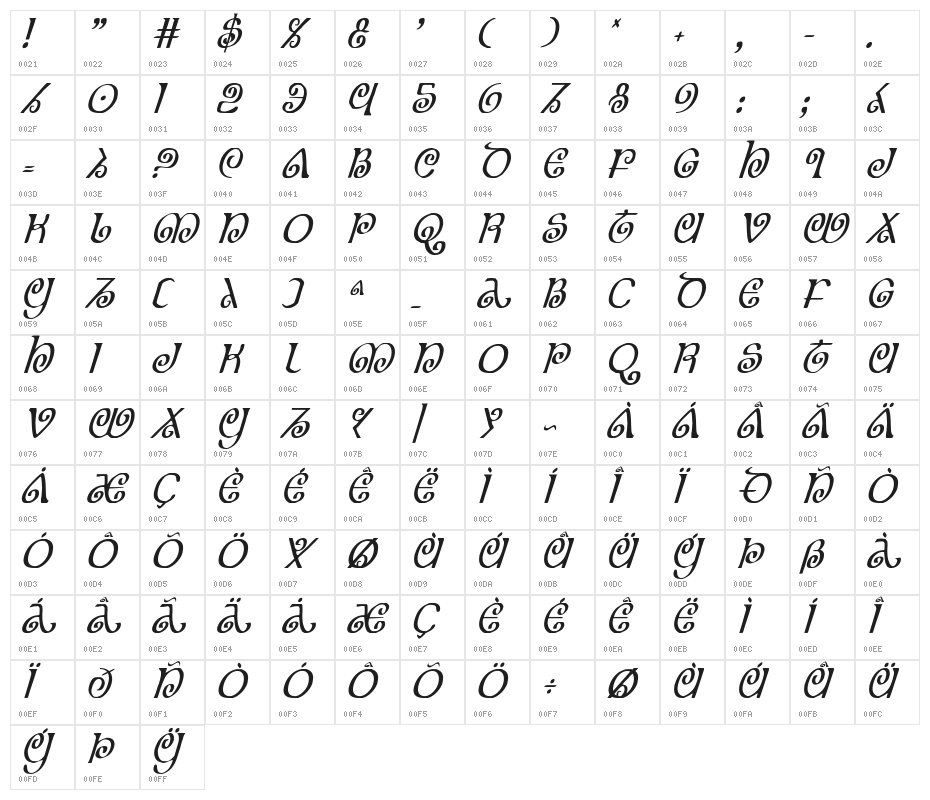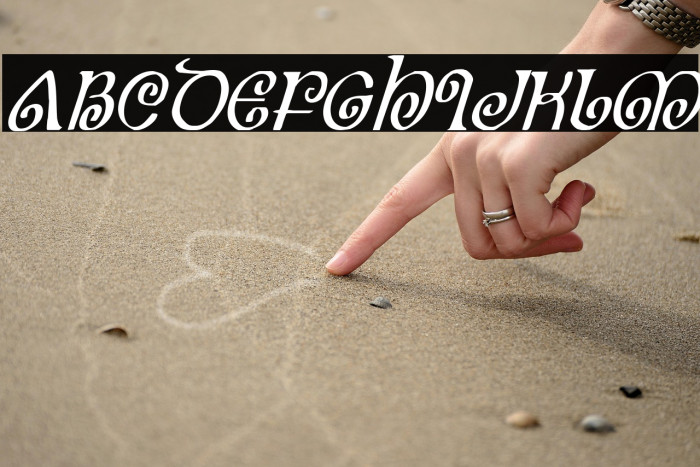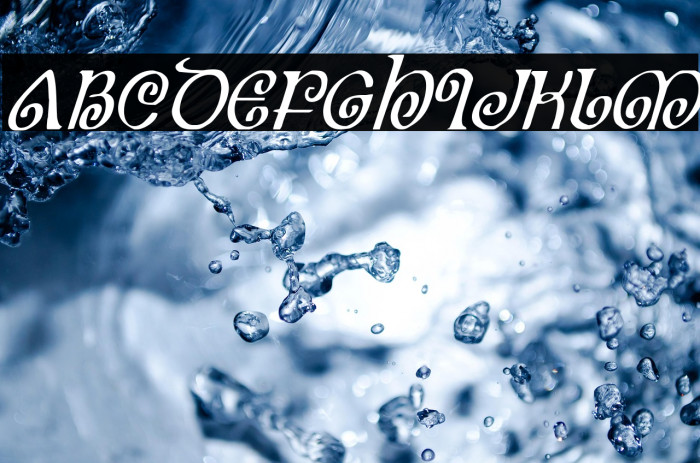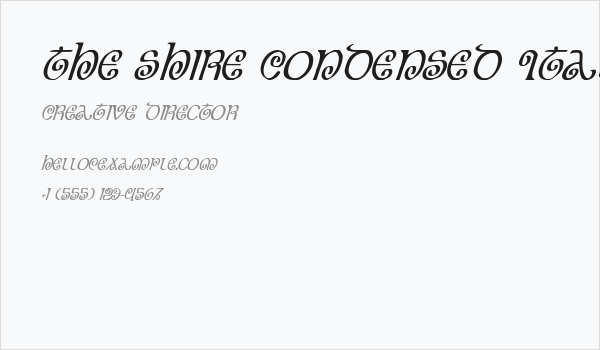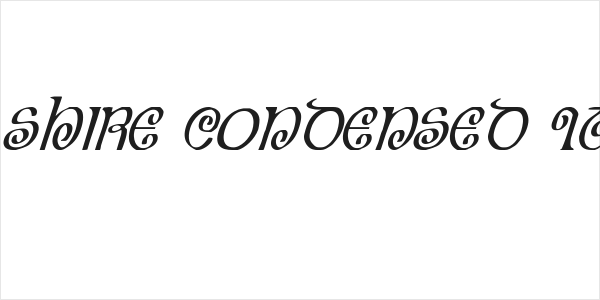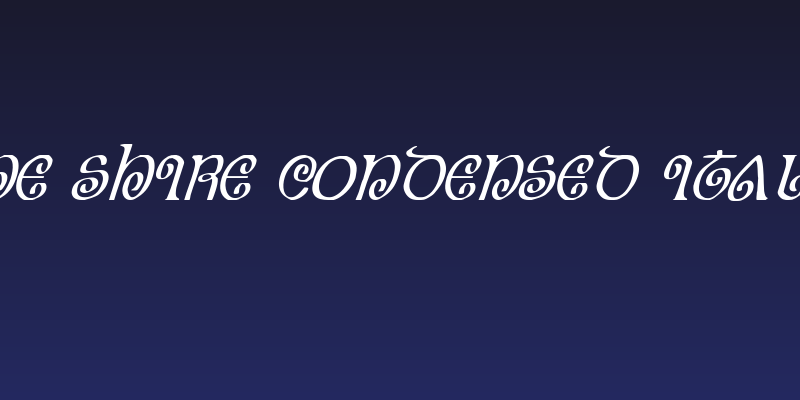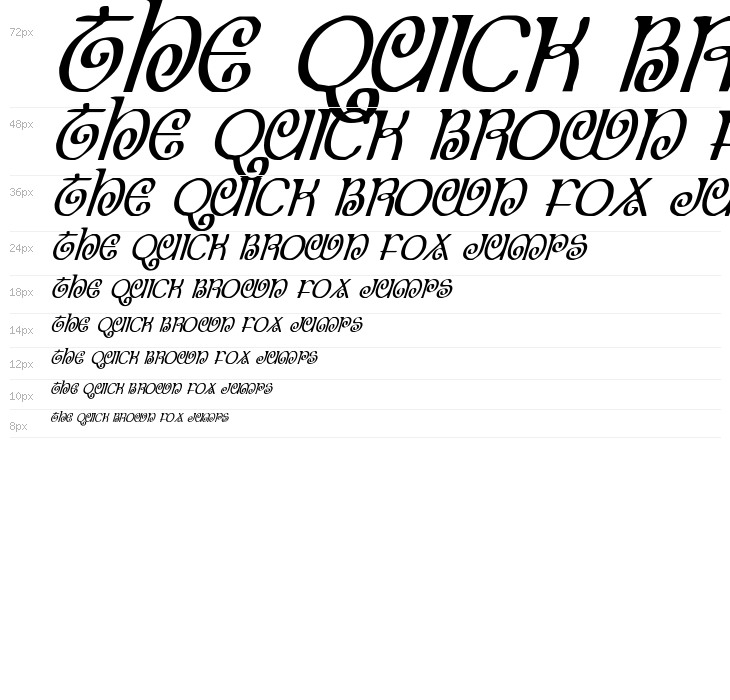
The Shire Condensed Italic Font
The Shire Condensed Italic Description
This font features a whimsical and decorative style with a strong calligraphic influence. The characters are uniquely crafted with elegant swirls and curves, giving it a fantasy-like appearance. The uppercase letters are particularly ornate, with intricate loops and embellishments that create a sense of movement and fluidity. The lowercase letters maintain the same decorative style, ensuring consistency throughout the typeface. Numbers and special characters are equally stylized, making them suitable for creative and artistic projects. The condensed nature of the font allows for efficient use of space, while the italic slant adds a dynamic and playful touch.